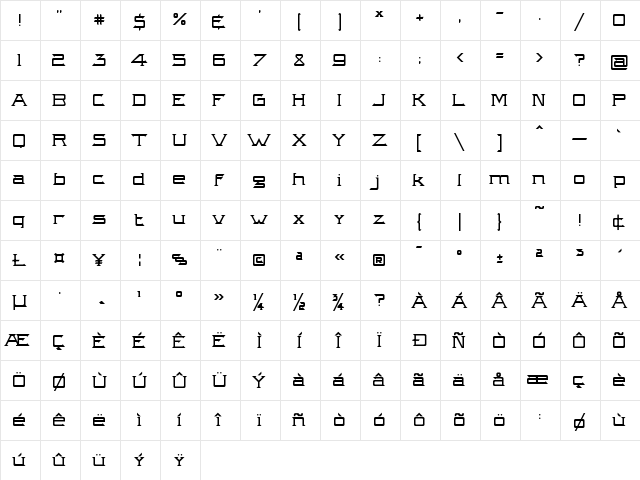
Intergalactik Airlines Light Regular Free Font
Intergalactik Airlines Light Regular
Complete Intergalactik Airlines Light Regular glyph index. Displaying only characters natively supported by Intergalactik Airlines Light Regular font.
Design Context for Intergalactik Airlines Light
Intergalactik Airlines Light is a composed and adaptable typeface that performs quietly and consistently across a wide range of design contexts. Its slender proportions lend an understated elegance to any composition.